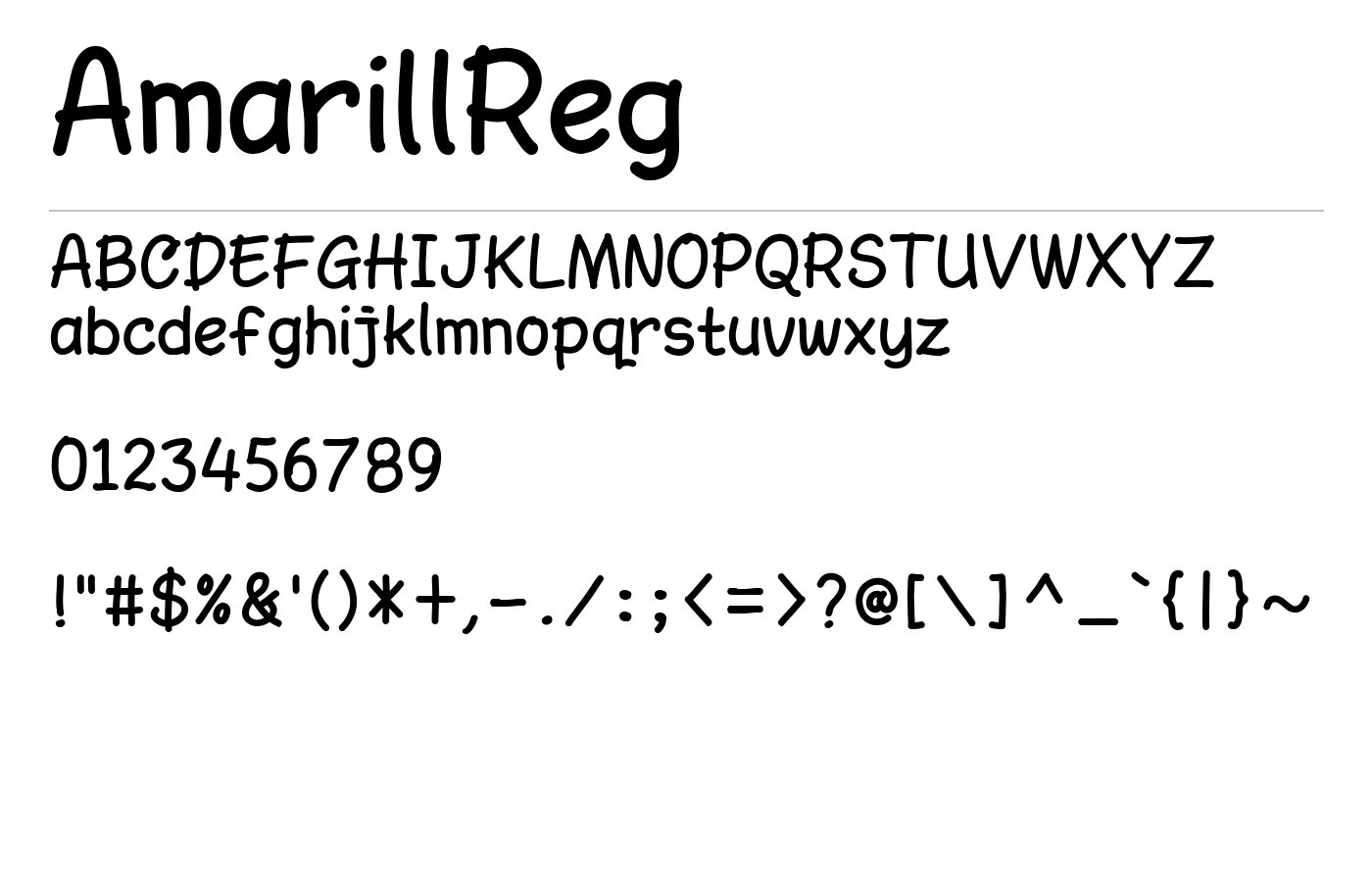
AmarillReg is a playful and informal handwritten sans serif font with a friendly, casual feel. Its rounded, slightly uneven strokes and high x-height make it highly legible while conveying warmth and approachability. This font works well for creative projects, children's materials, and any design seeking a fun, personal touch.
AmarillReg Font
About AmarillReg Font